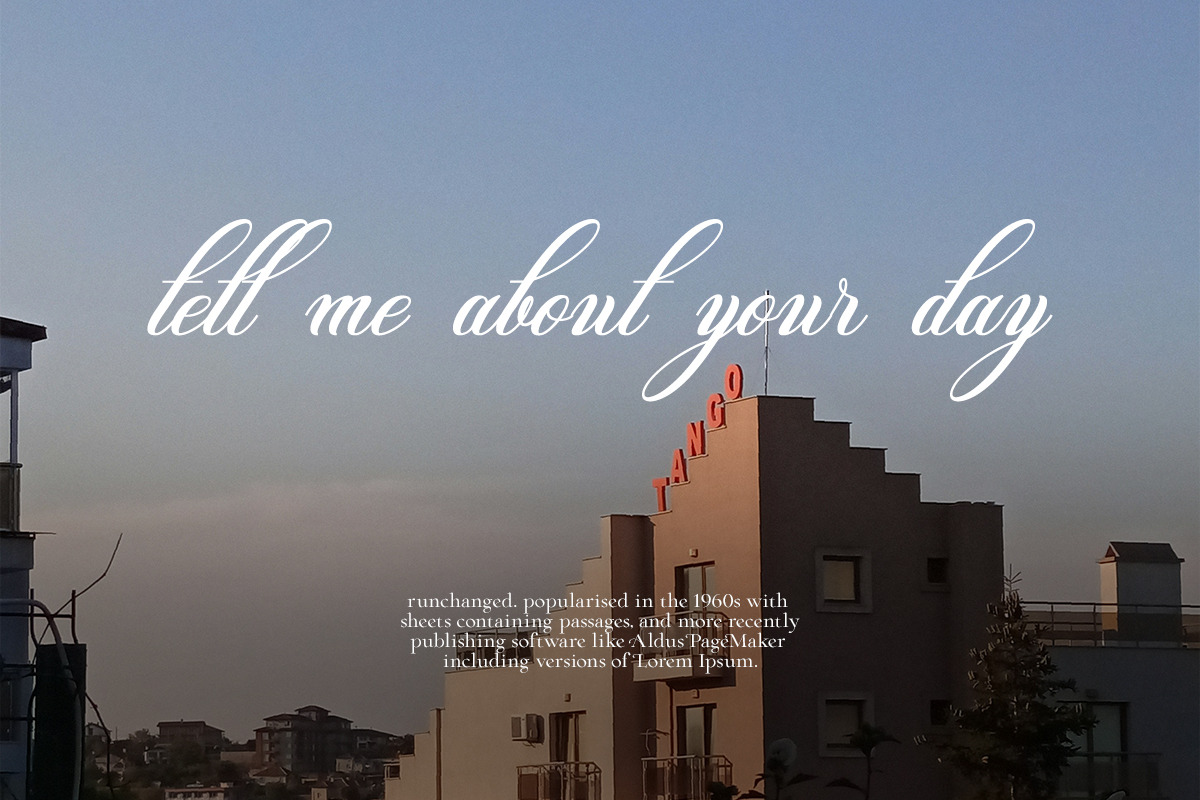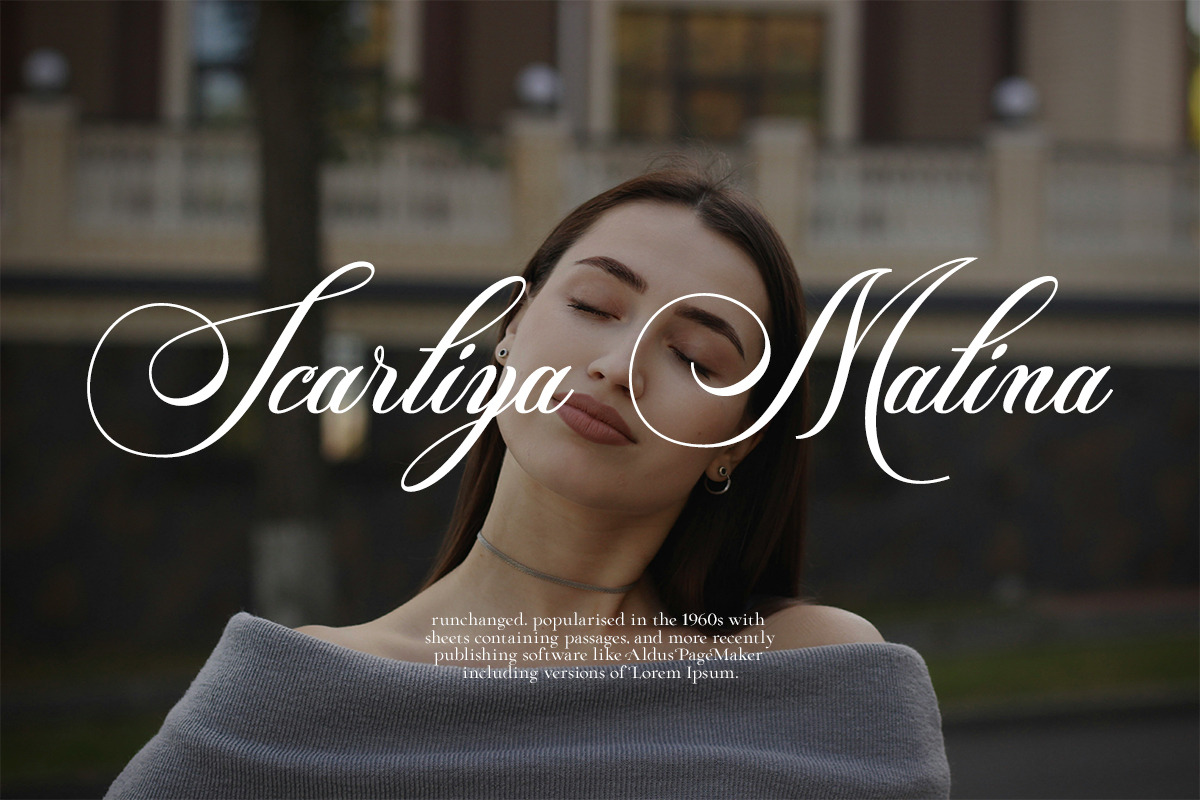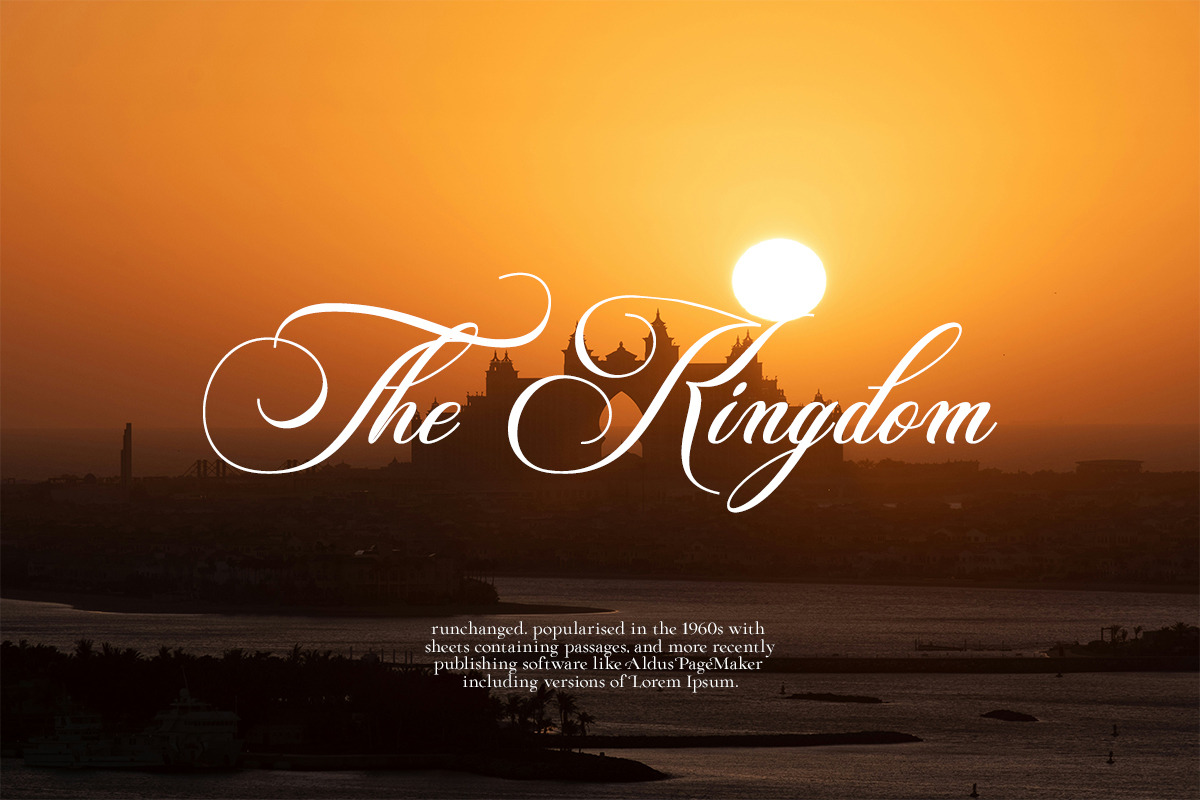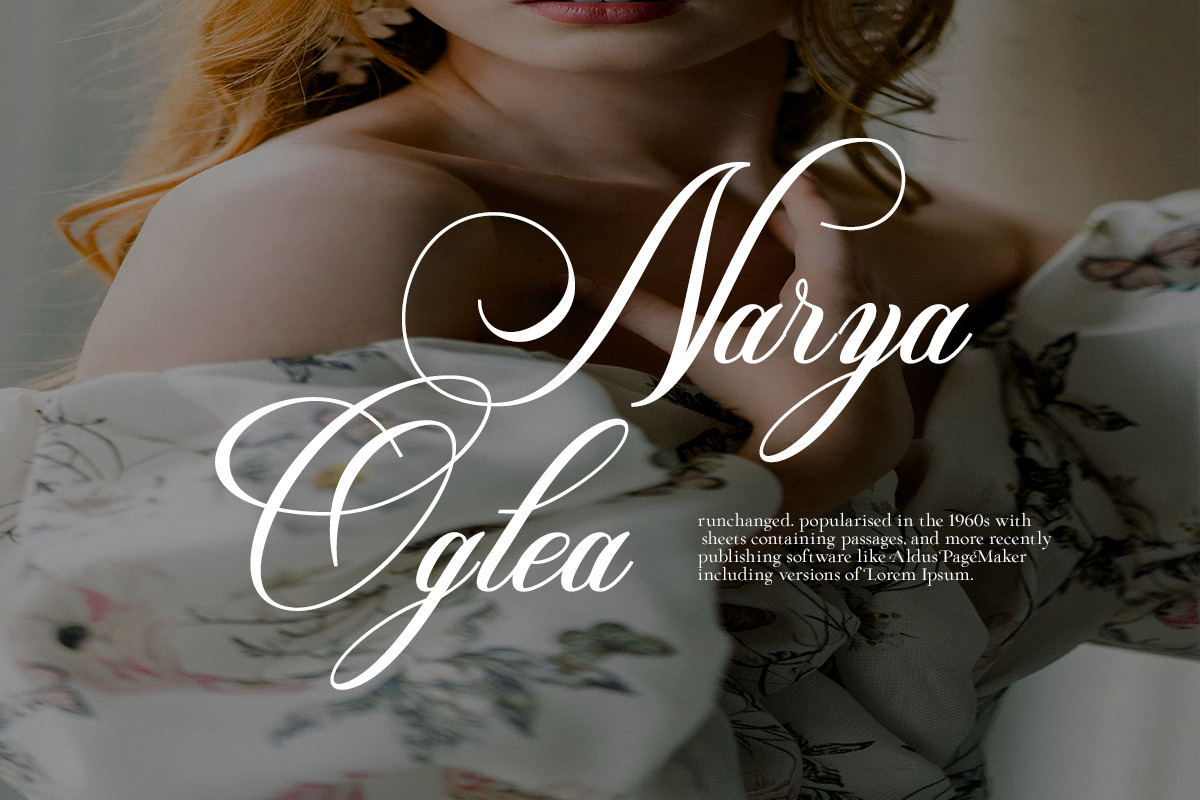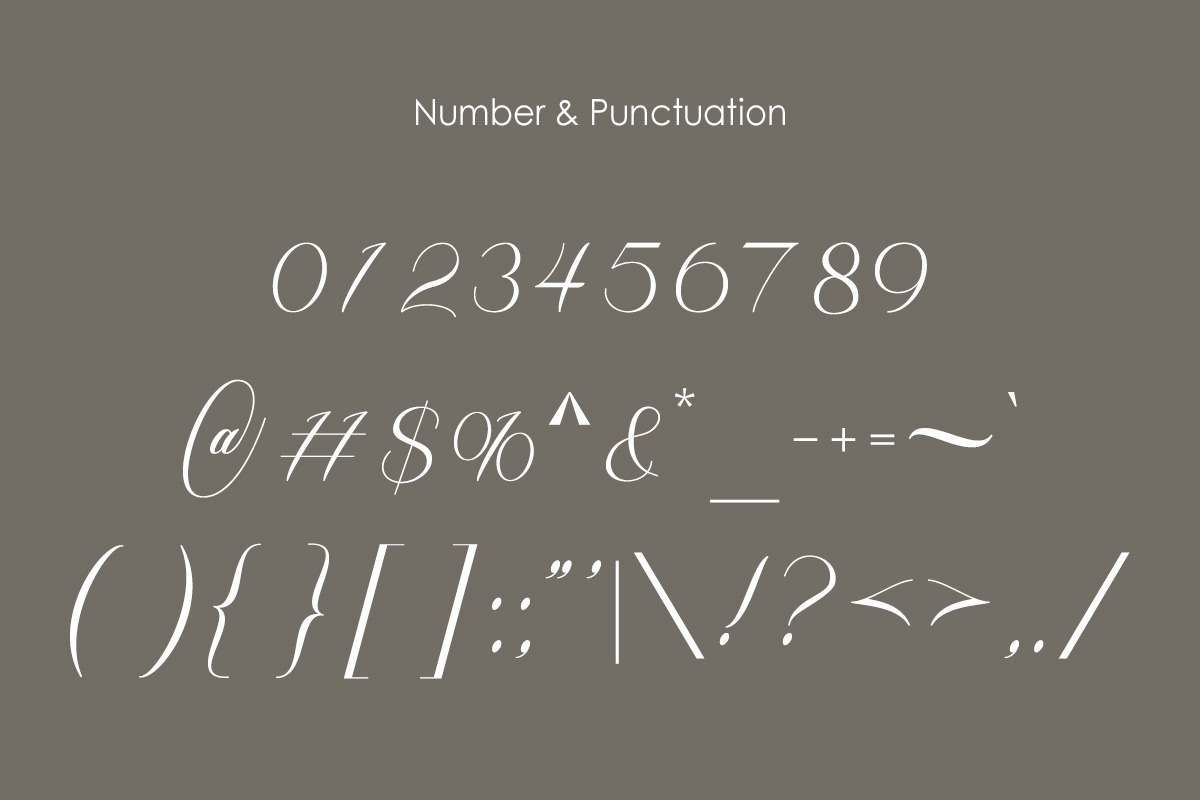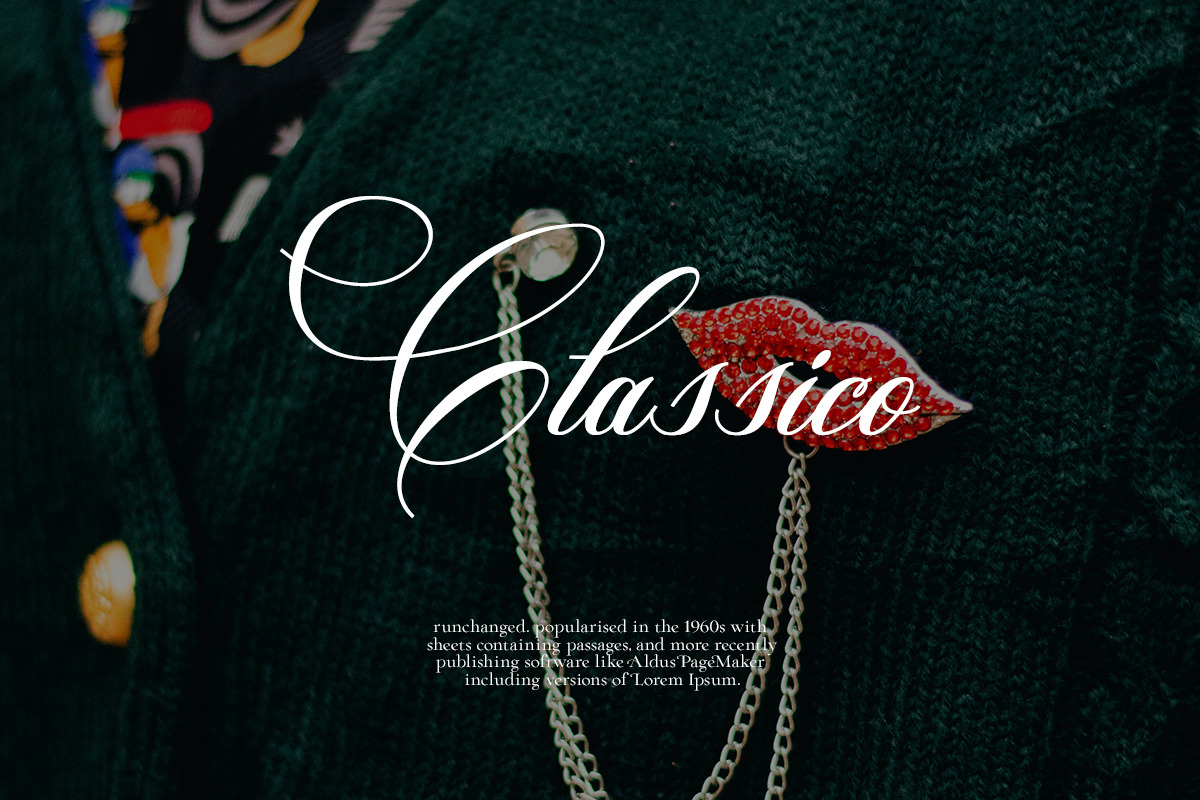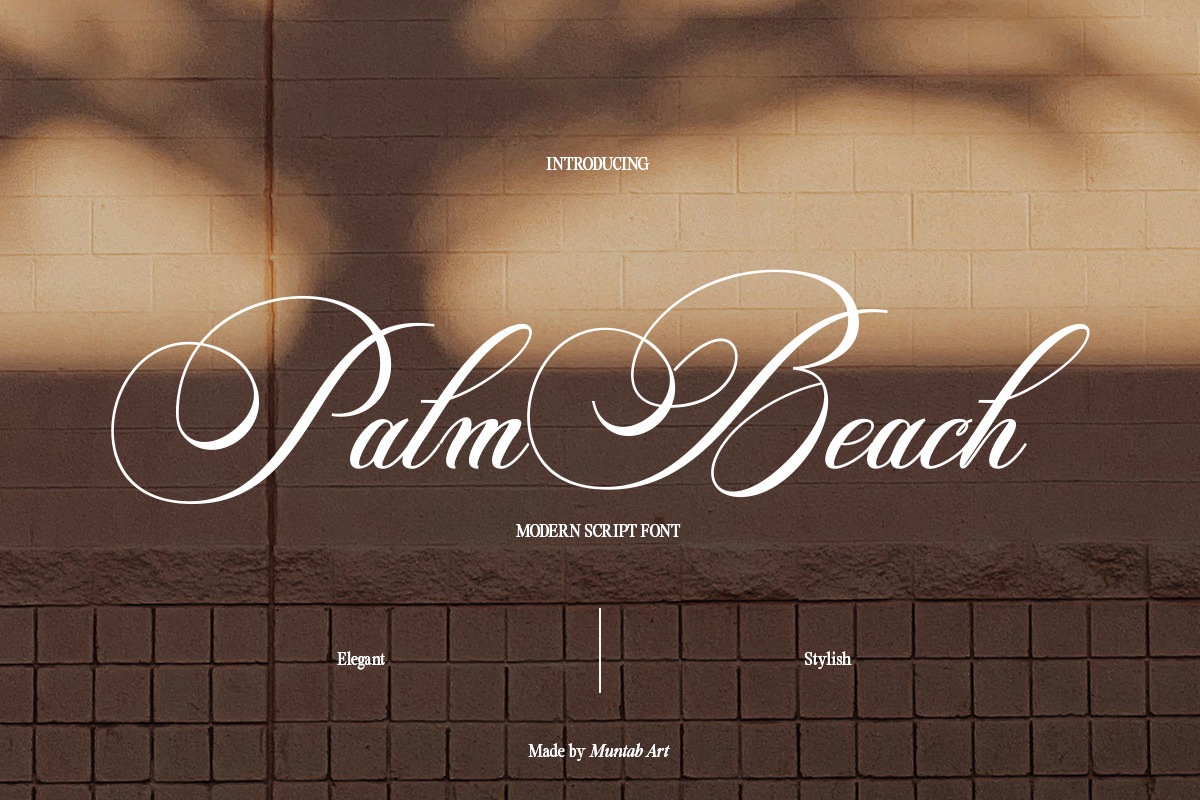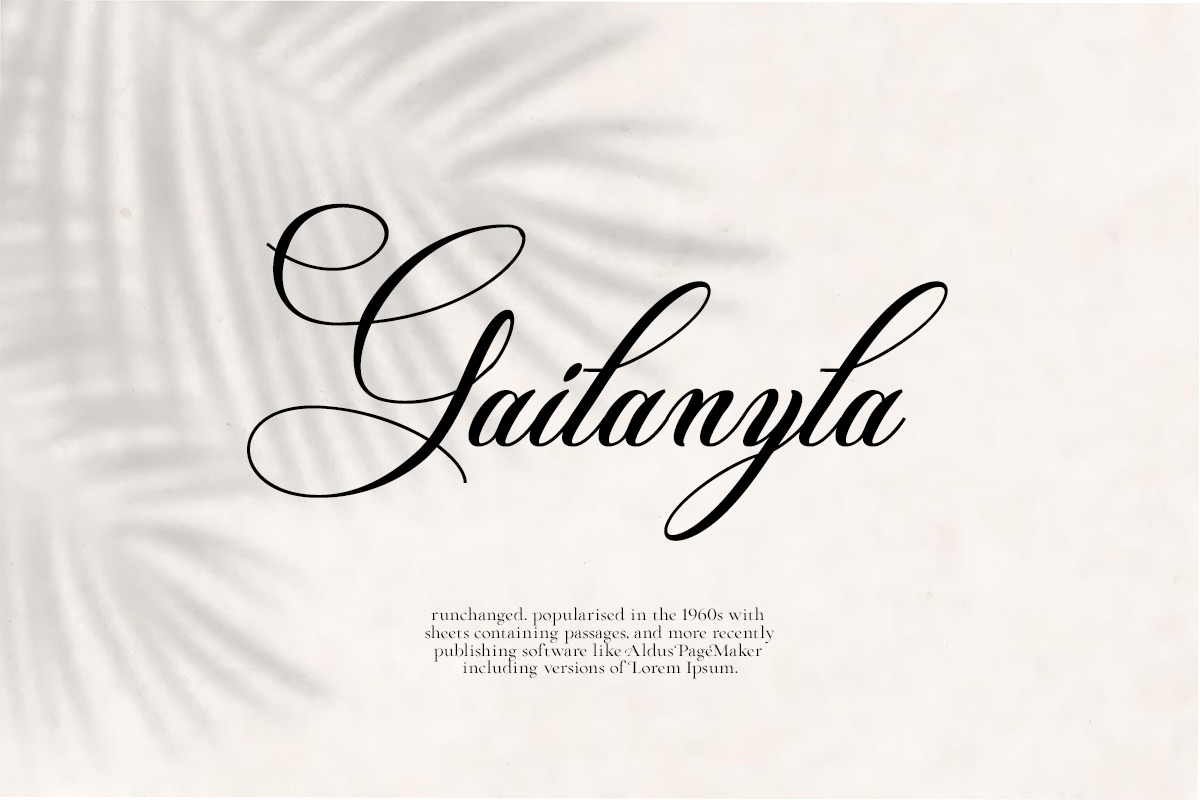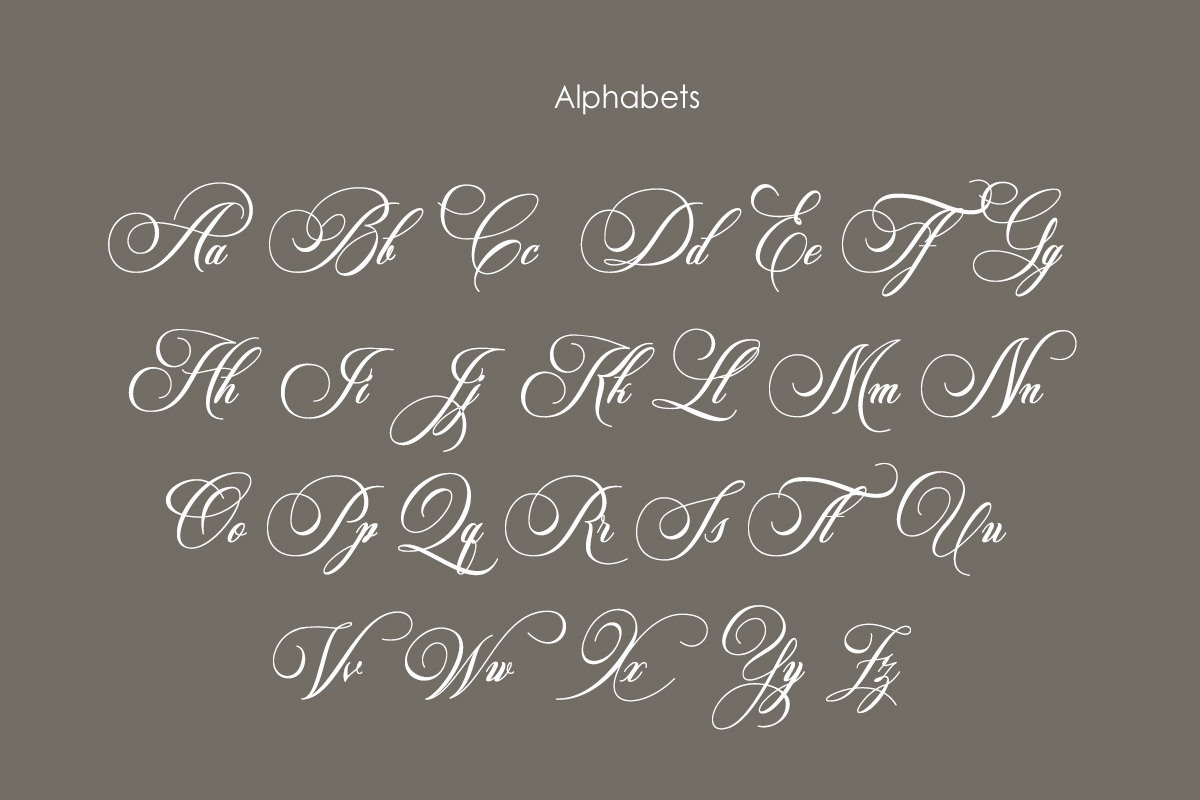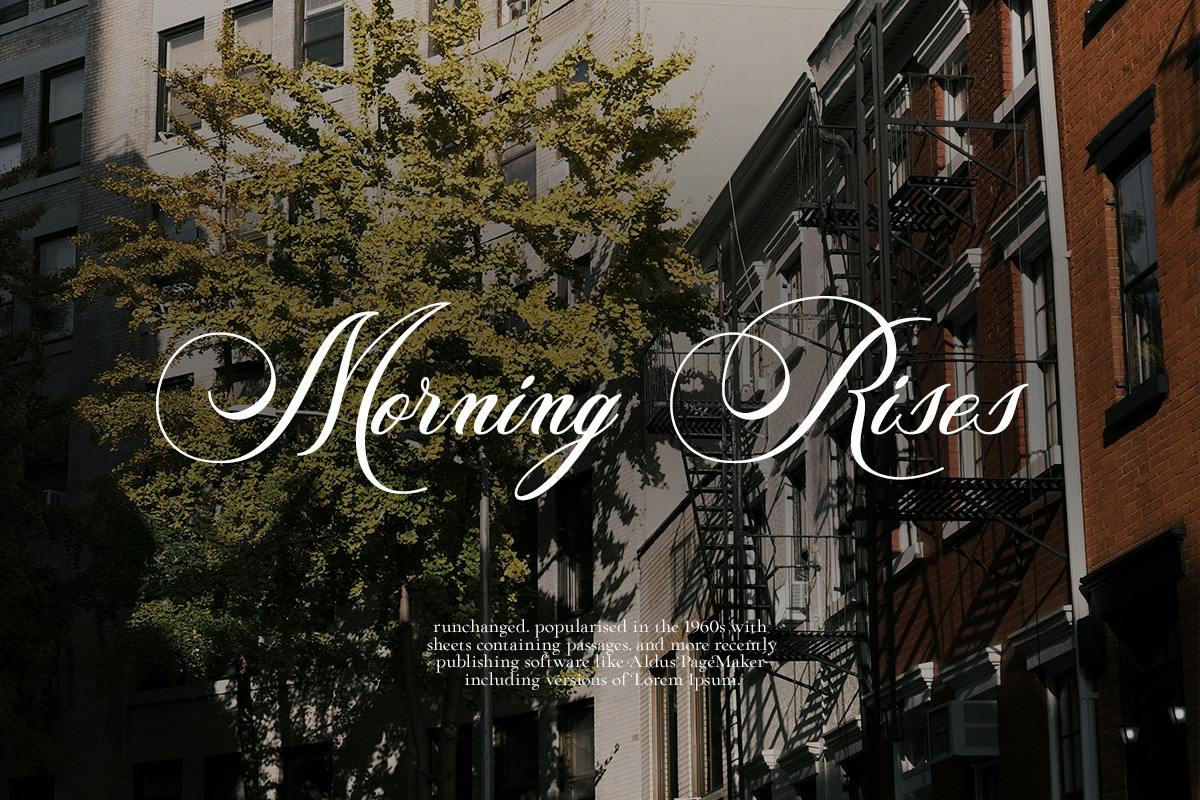
Palm Beach Modern Script Font
Palm Beach fonts includes uppercase letters, lowercase letters, numerals, a large range of punctuation. Script font with Elegant style. Created for poster, web design, branding, illustrations, badges and some other works.